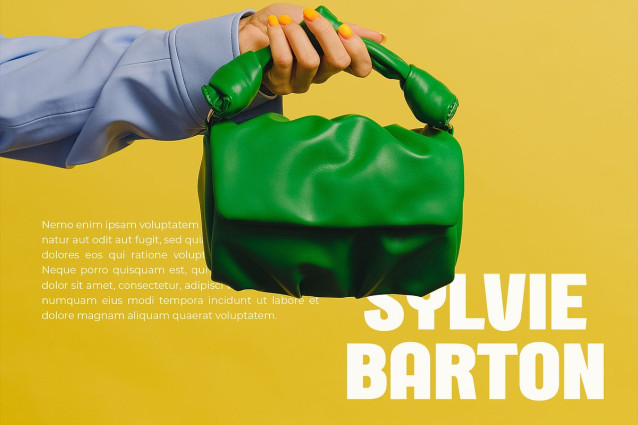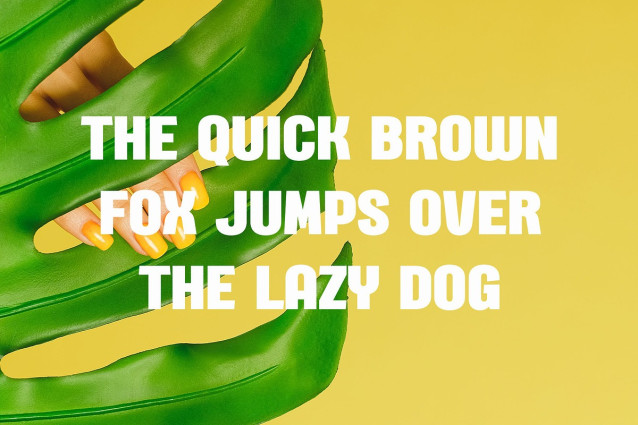
Ximply Font
Ximply Font – Modern Sans Serif, is a modern and simple font, best used as a display for headings, logos, branding, magazines, product packaging and invitations.